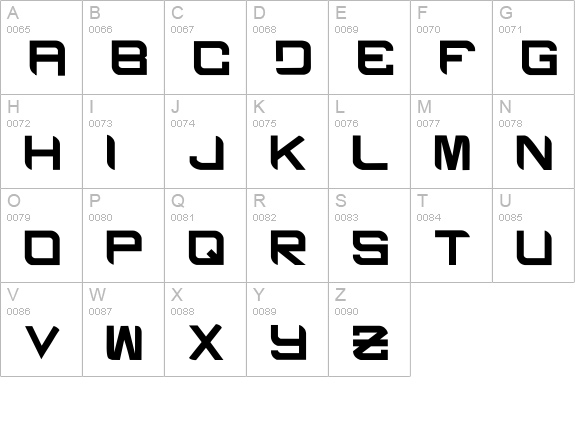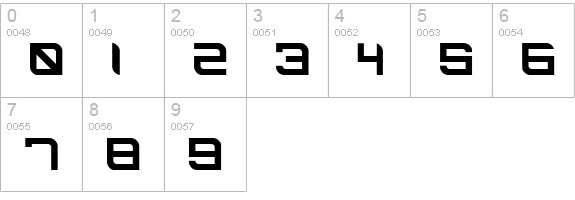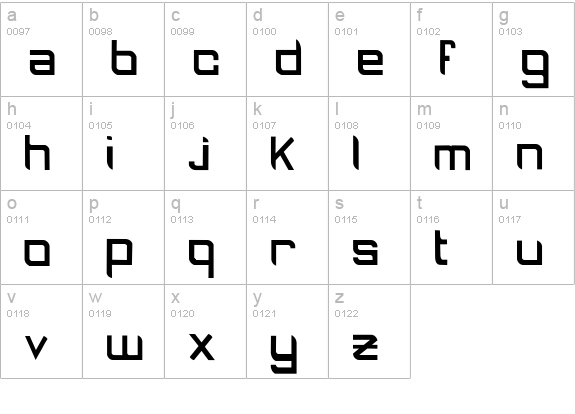
BLACK CAPS Regular Font Details
BLACK CAPS Regular is a maximum-weight, dramatic variant in the BLACK typeface family \xE2\x80\x94 well suited to maximum-impact headlines, posters, and packaging.
BLACK CAPS Regular font is a versatile and stylish typeface that adds a touch of elegance and sophistication to any design project. With its clean and bold lines, this font is perfect for creating eye-catching headlines, titles, and logos. Whether you're designing a website, a poster, or a branding project, BLACK CAPS Regular font will make your text stand out and grab attention. This font offers a wide range of characters, including uppercase letters, numbers, and punctuation marks, allowing you to express your creativity and create unique designs. The sleek and modern design of BLACK CAPS Regular font makes it suitable for both print and digital use. One of the best things about BLACK CAPS Regular font is that it is available for free download at FontsMarket.com. This means that you can easily access and use this font in your projects without any cost. FontsMarket.com is a reliable and reputable source for high-quality fonts, and they offer a wide range of fonts for free download. So, if you're looking for a stylish and versatile font that will add a touch of sophistication to your designs, look no further than BLACK CAPS Regular font. Download it for free at FontsMarket.com and start creating stunning designs today.